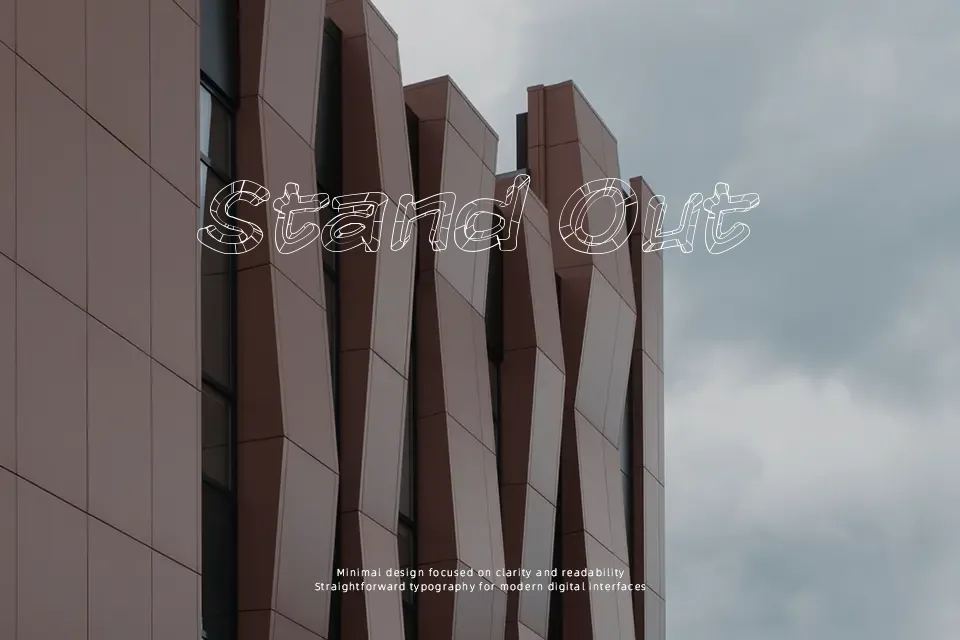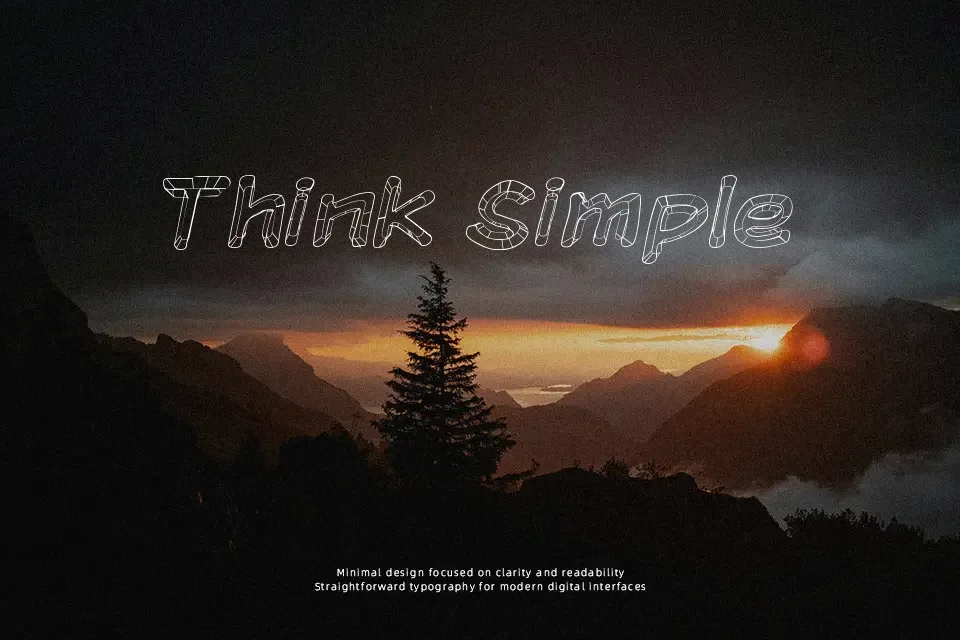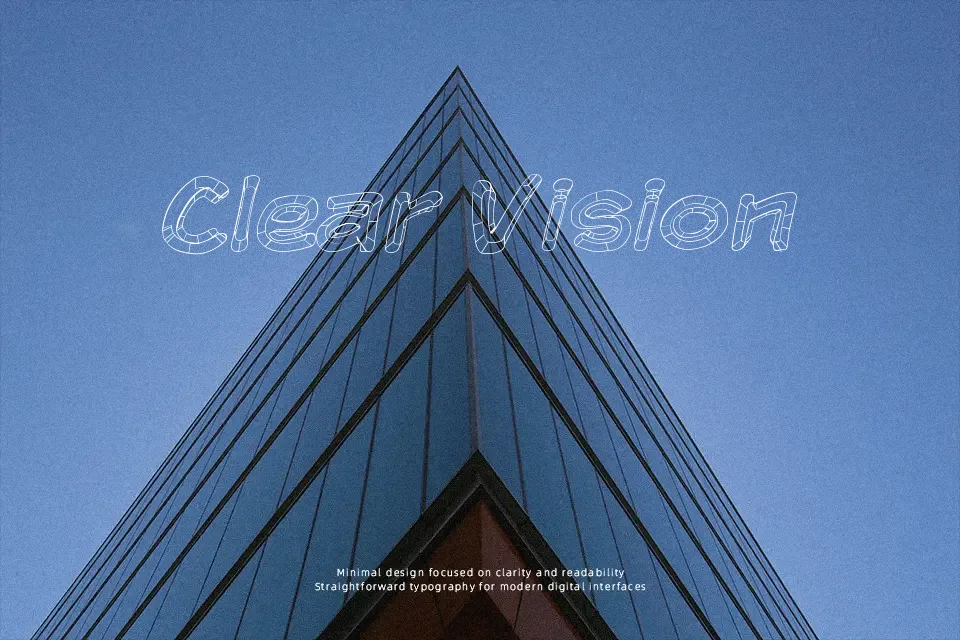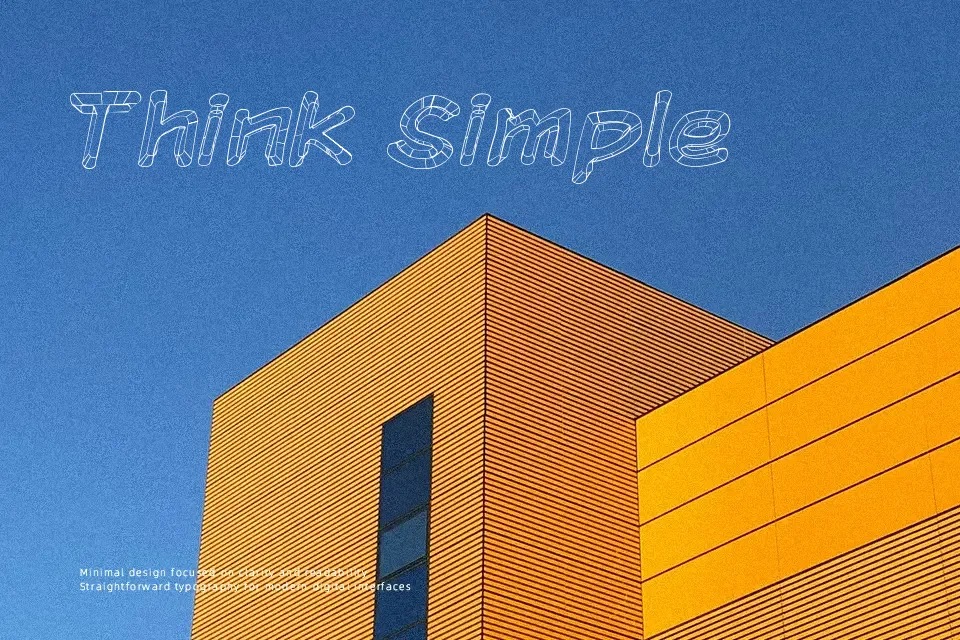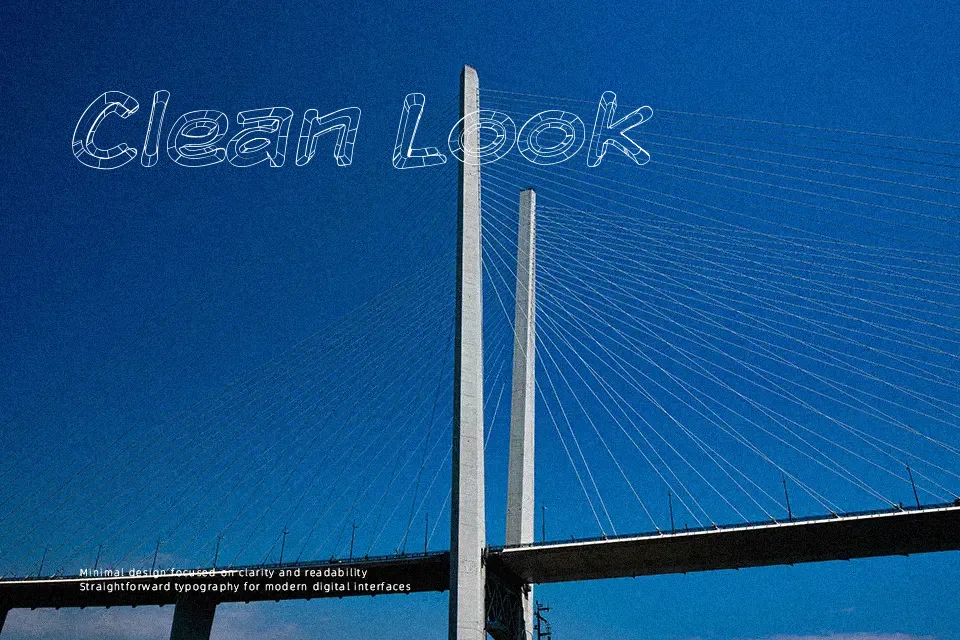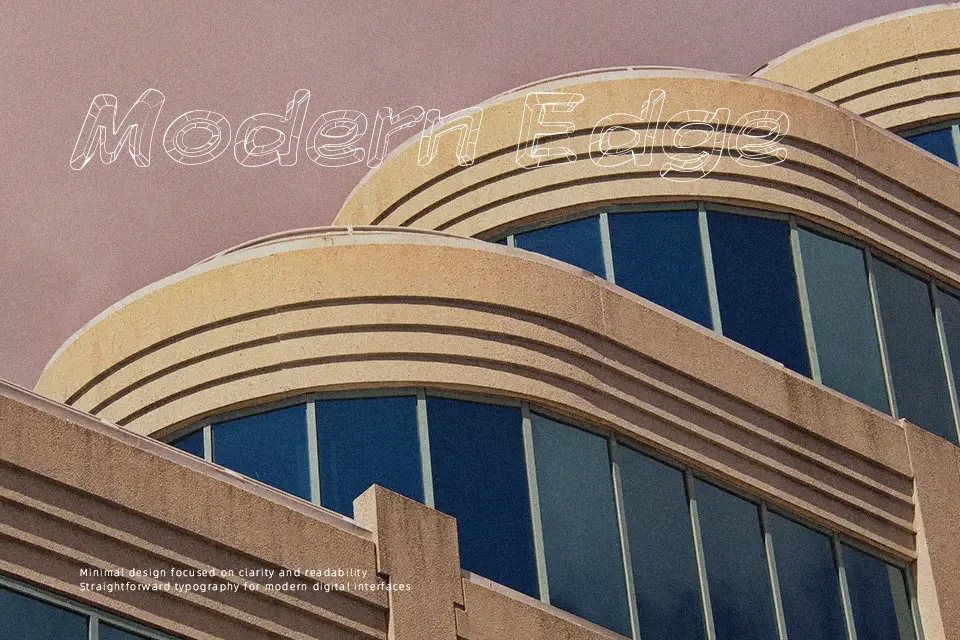
Komika Sketch Font
Rough edges, uneven strokes, and slightly jittery letterforms give Komika Sketch a lively, hand-drawn appearance that echoes traditional comic book lettering. The spacing feels loose and organic rather than structured, reinforcing its casual, sketch-like personality. It works well in comic strips, illustrated posters, or playful social media graphics where imperfection adds charm. However, the irregular outlines reduce clarity at smaller sizes and make it unsuitable for long reading. From a practical standpoint, it shines in expressive, visual-heavy designs but quickly becomes distracting when used for body text or more formal layouts.
– comic strip dialogue and captions
– illustrated poster titles
– playful social media graphics
– kids-themed branding visuals
– long paragraph text
– corporate or formal documents
– small UI labels
– minimalist design systems
Perfect for branding, headline, and kids, with a artistic and comic style.